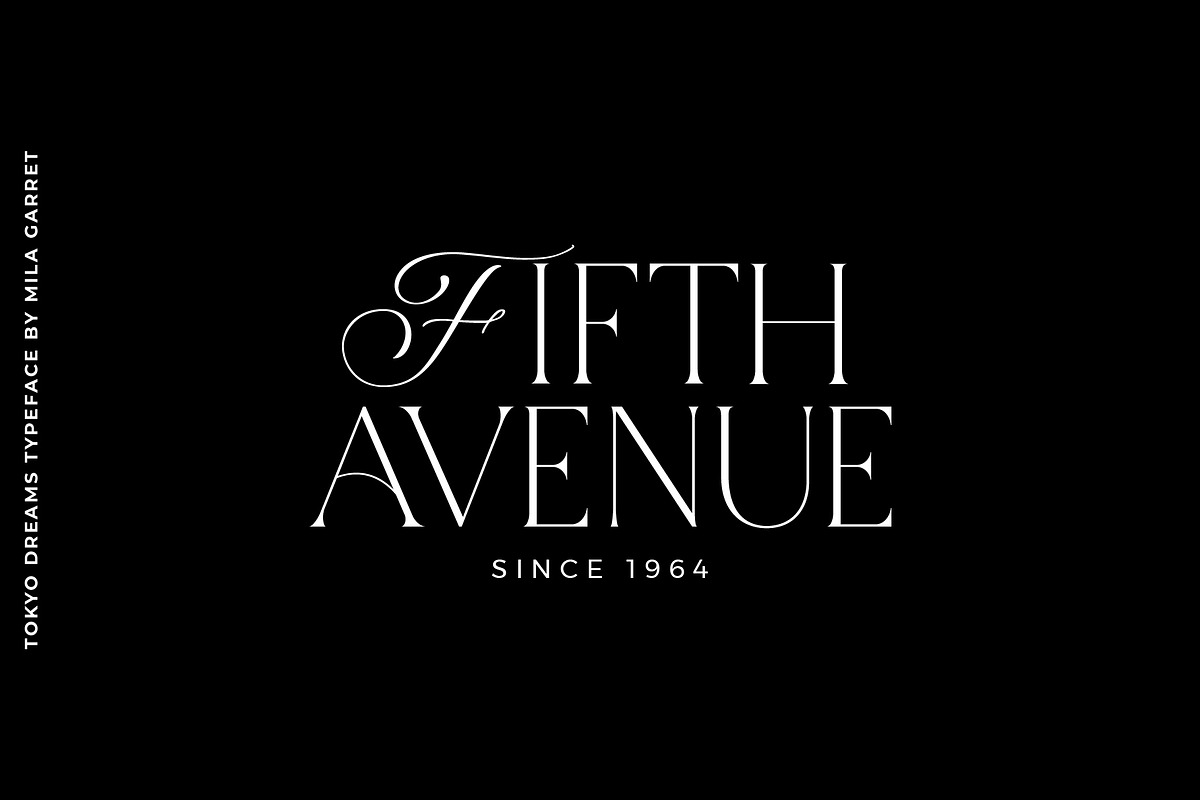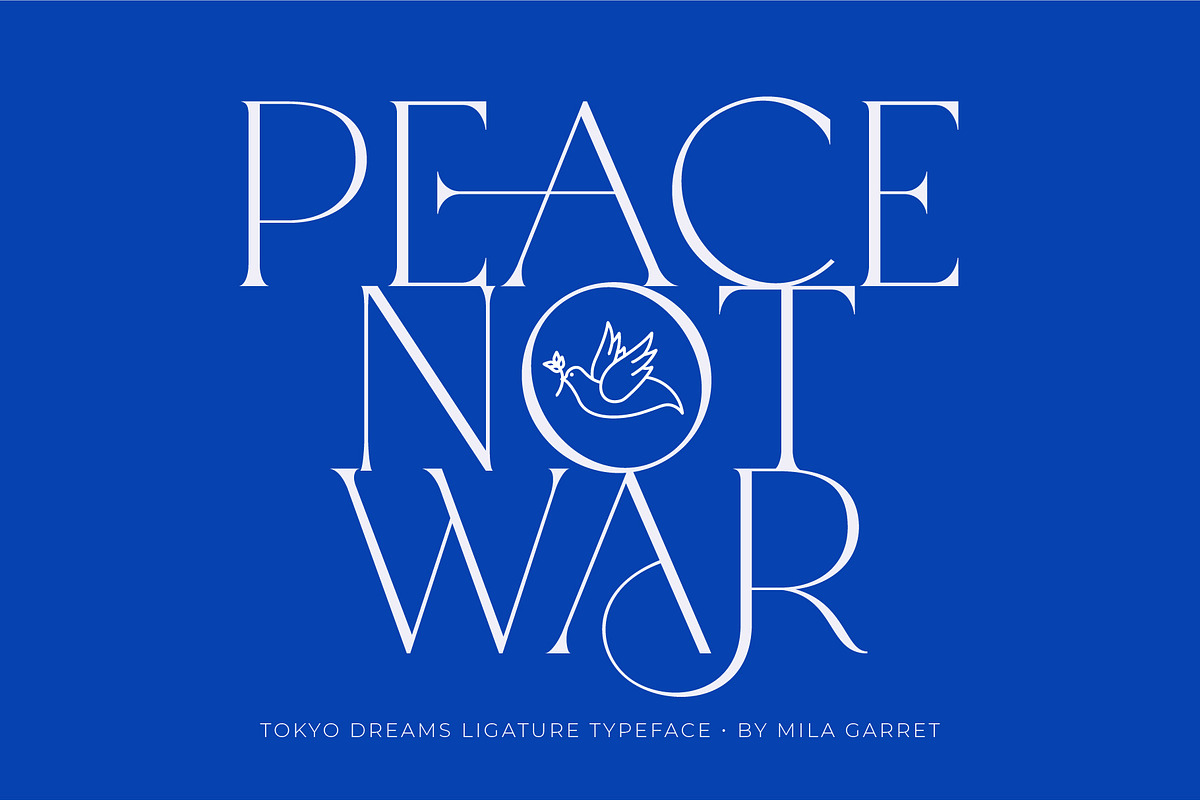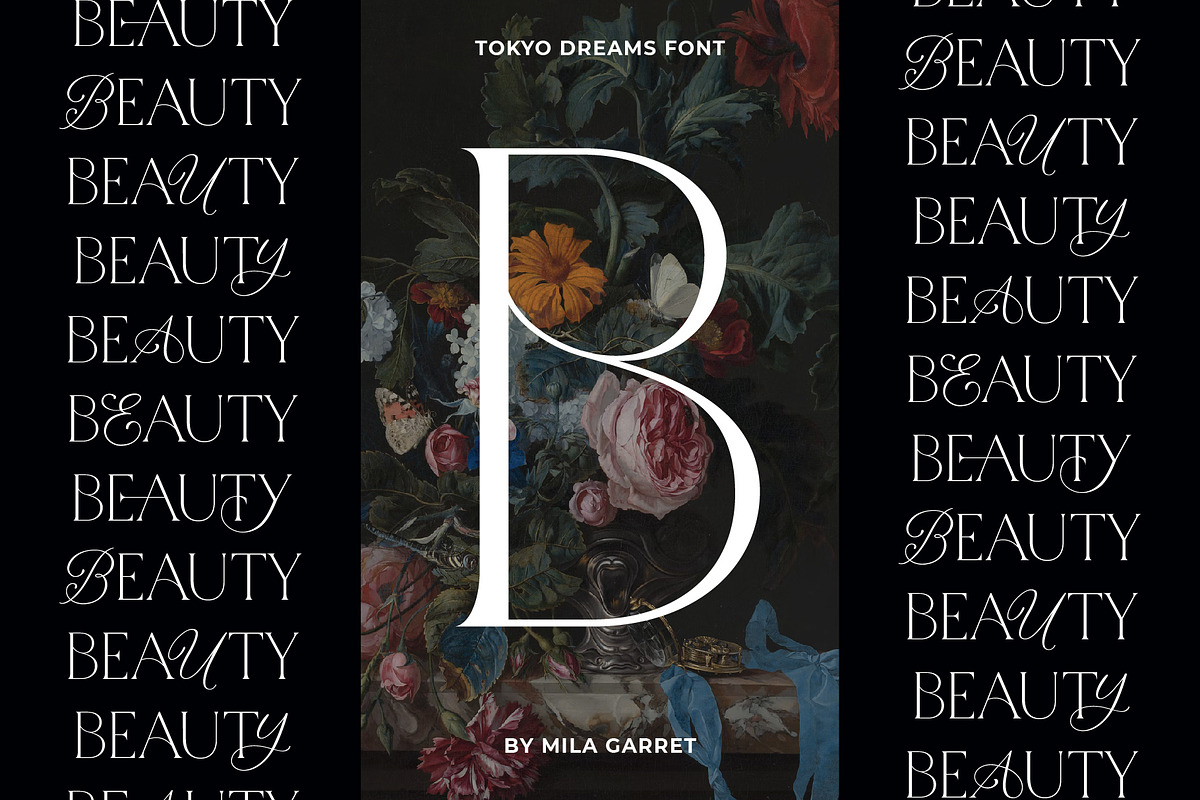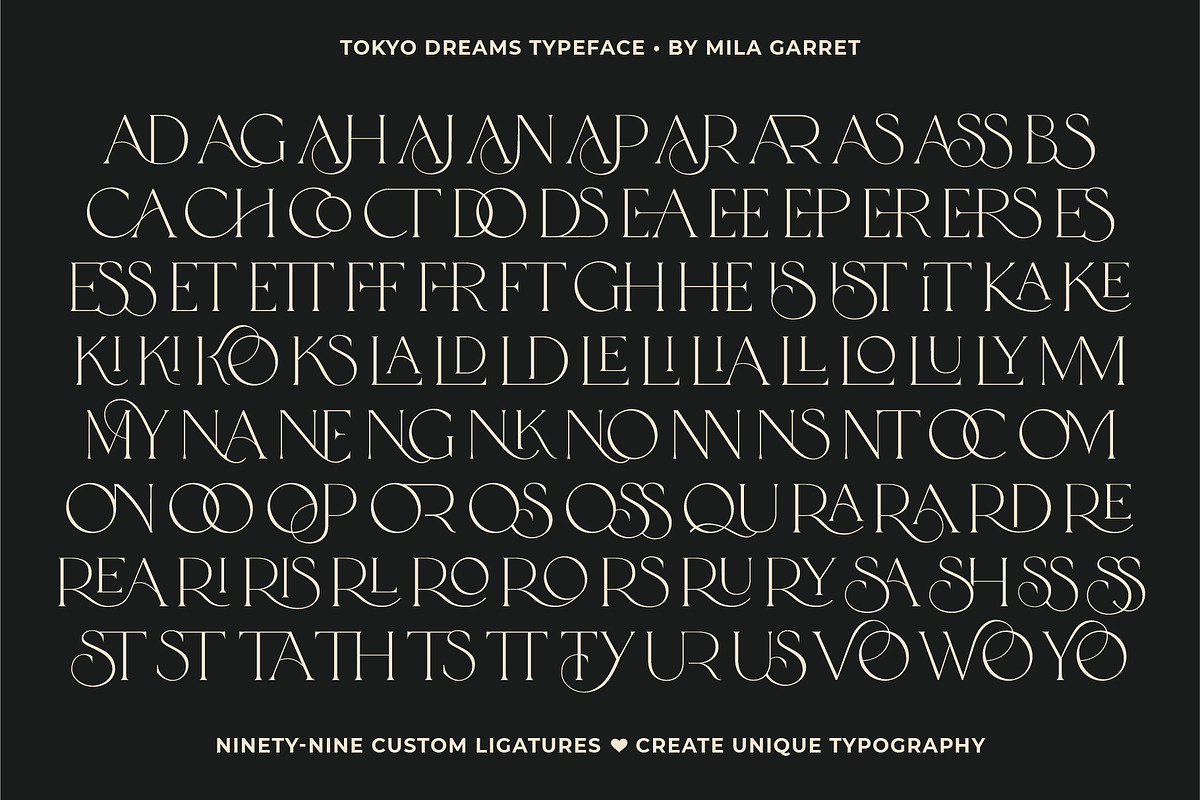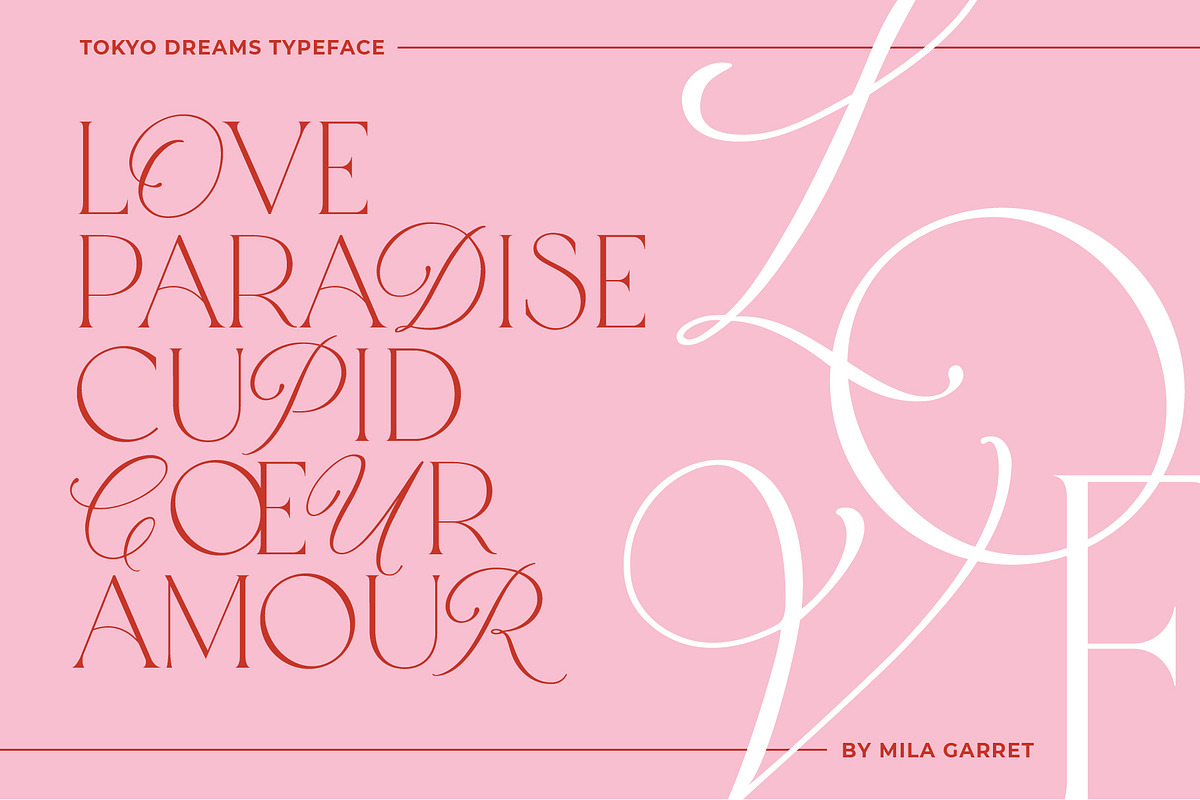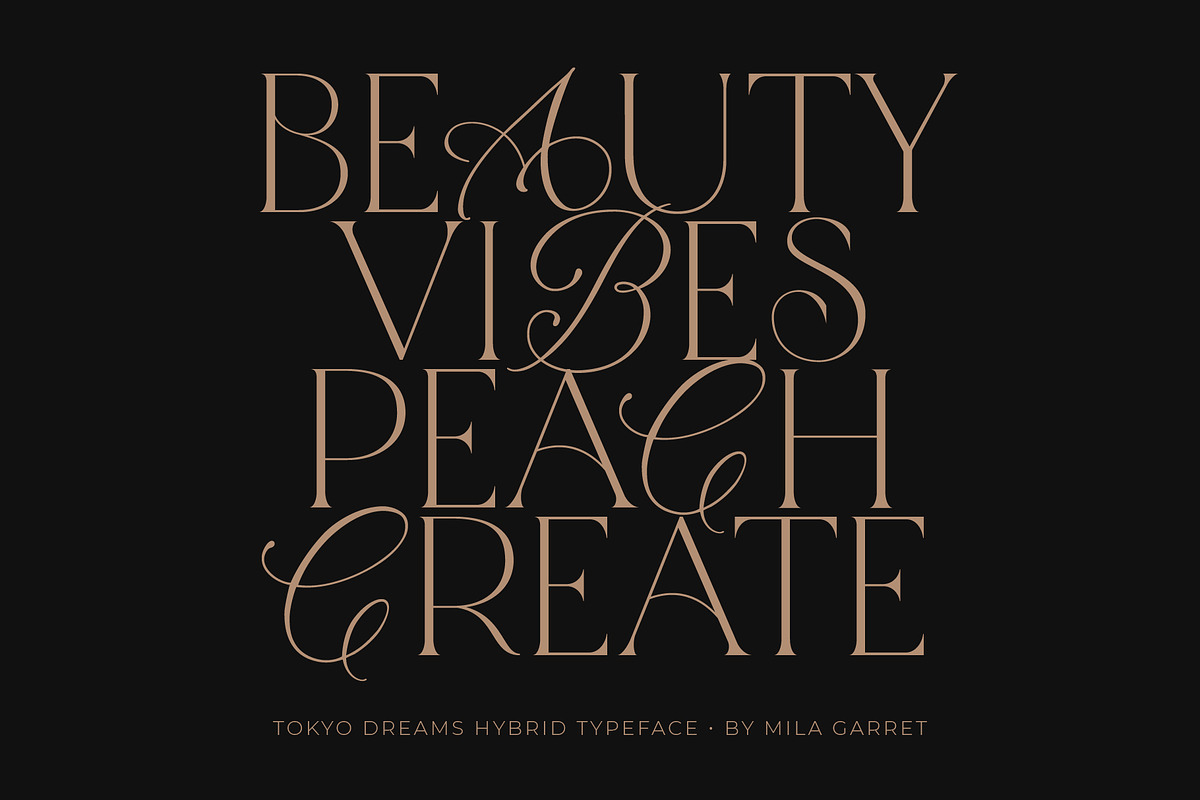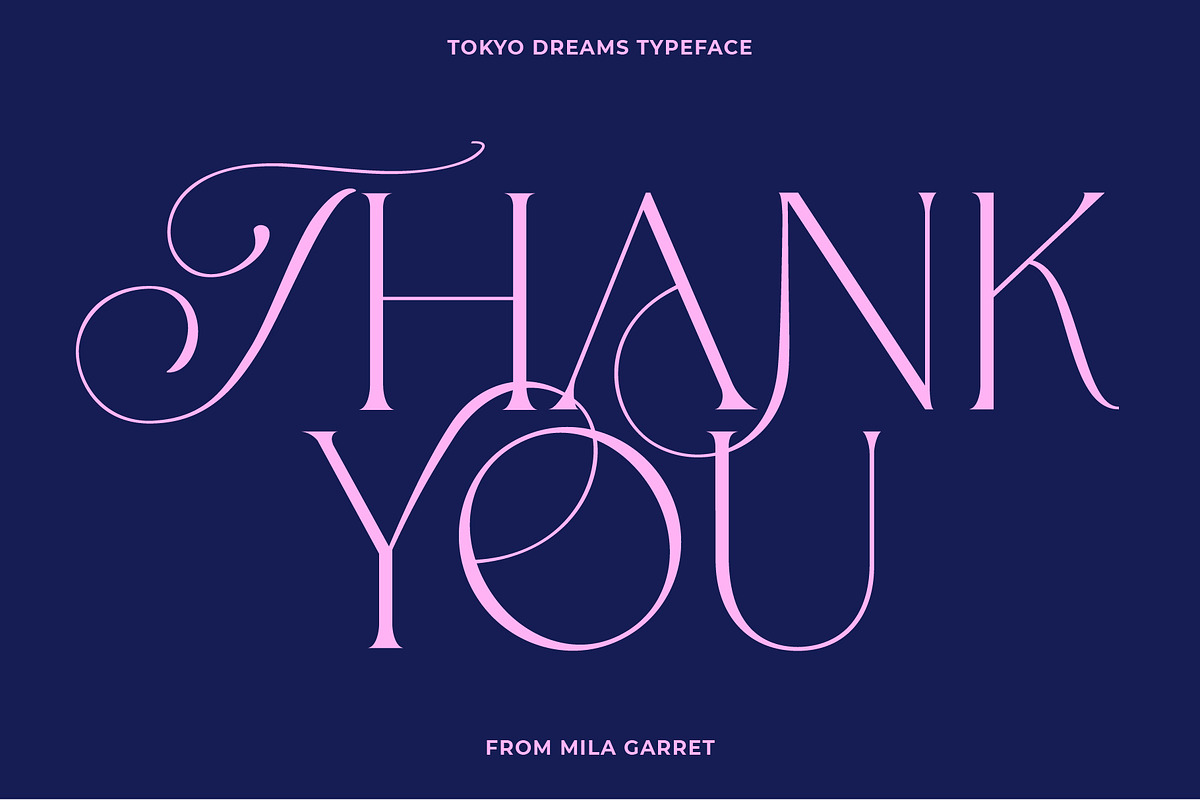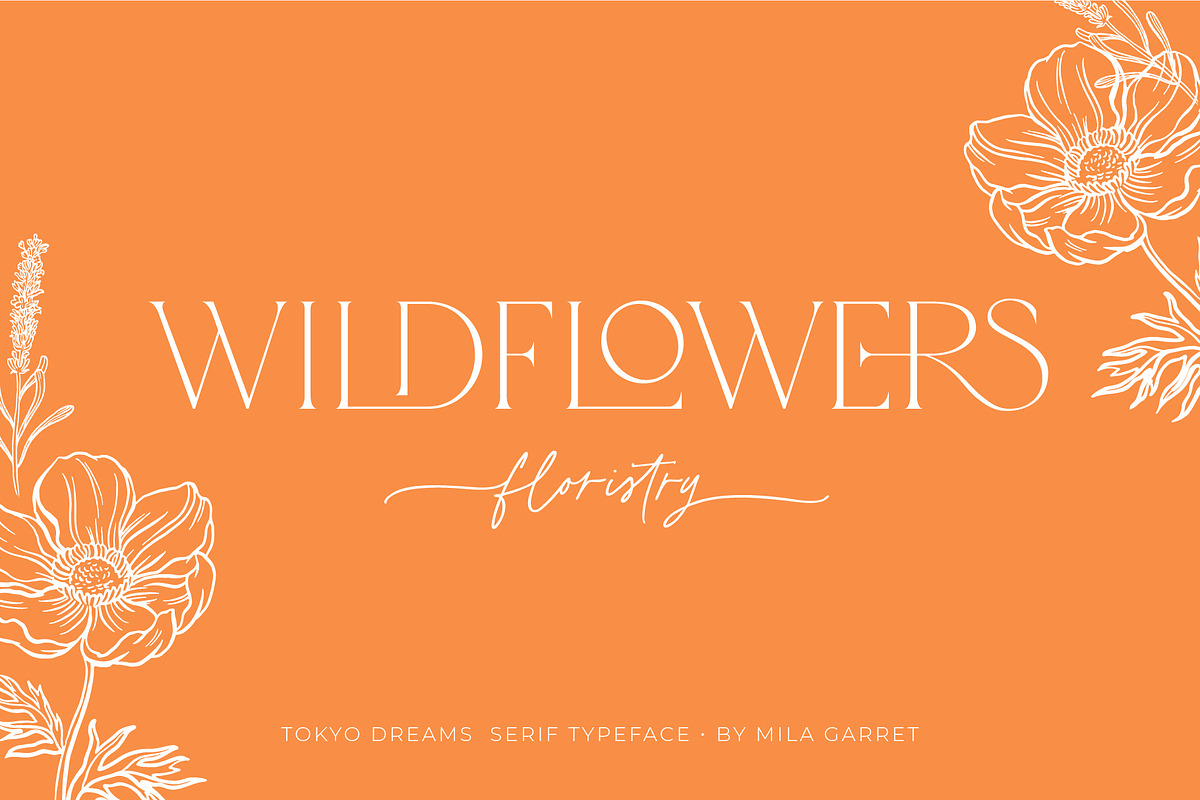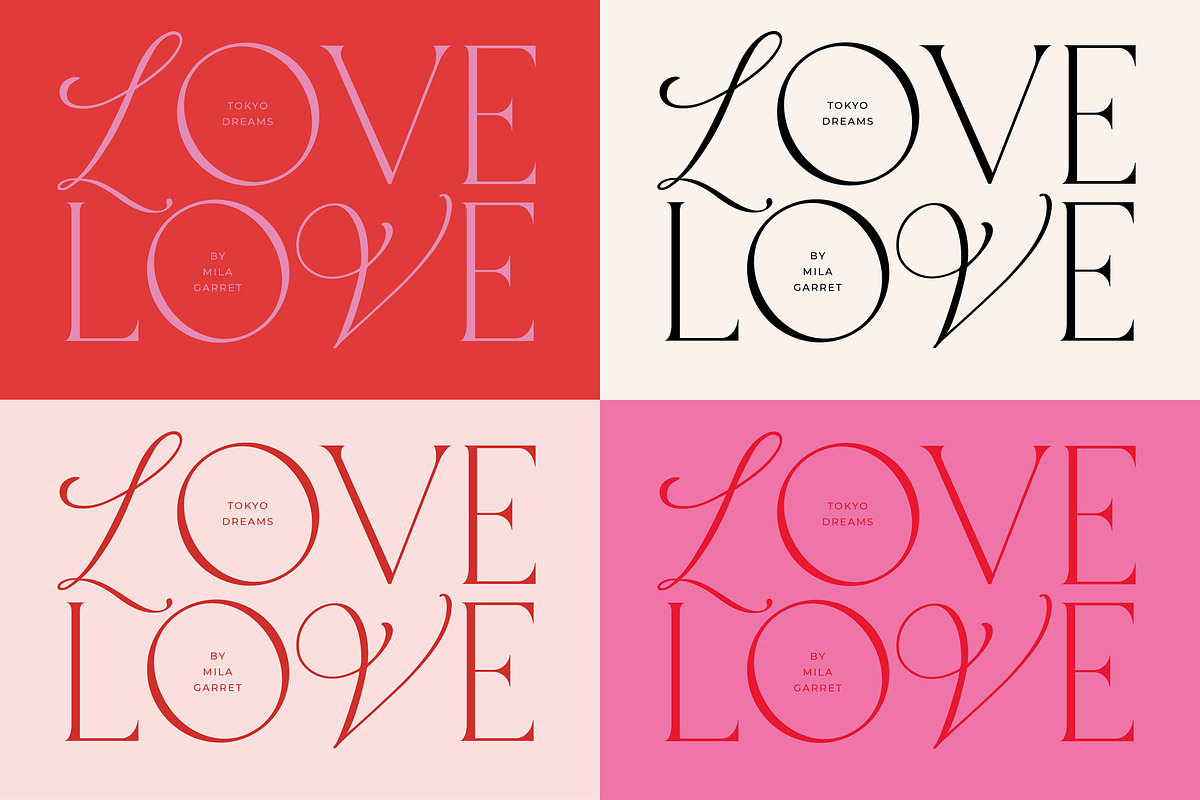
Tokyo Dreams Display Ligature Serif
Introducing Tokyo Dreams: A multi-faceted Serif Display typeface with three different styles: An elegant minimal serif, a ligature rich headline font, and a hybrid mix of serif and script letters.
With a whopping total of 99 unique ligatures, it's easy to achieve custom typography for stunning logos, headlines, and quotes. Type in all lowercase in the type tester to try it out!
The hybrid personality of Tokyo Dreams mixes script letters among serif - script letters can be inserted anywhere in the word to create unique logos and display titles, contained as stylistic alternates in the main font or easily accessed via uppercase in the hybrid font.
There's beauty in the plain version of Tokyo Dreams, even without all the extras, for a clean and elegant minimal serif. Any version of Tokyo Dreams brings a touch of luxury and bespoke custom typography to modern logos, websites, social media quotes, wedding branding, and more.
Tokyo Dreams Features
- Full Set of standard alphabet and punctuation
- 99 Serif Ligatures
- 27 Script alternates
- Multilingual Characters (ÁÂÄÀÅÃÆÇÉÊËÈÍÎÏÌÑÓÔÖÒØÕŒÚÛÜÙÝŸŠŽß€£¥ªº - Note that as an all-caps typeface, German Eszett is represented as 'SS')